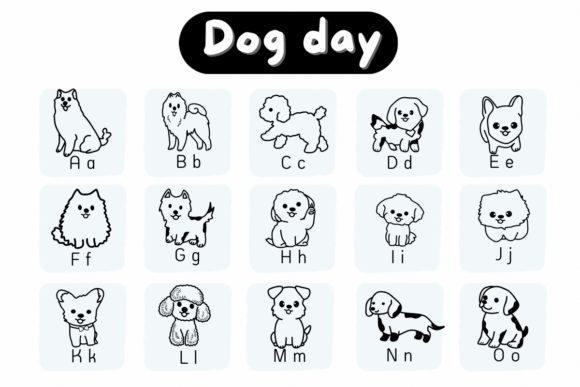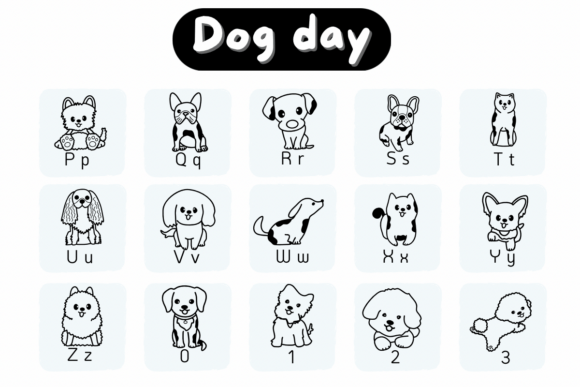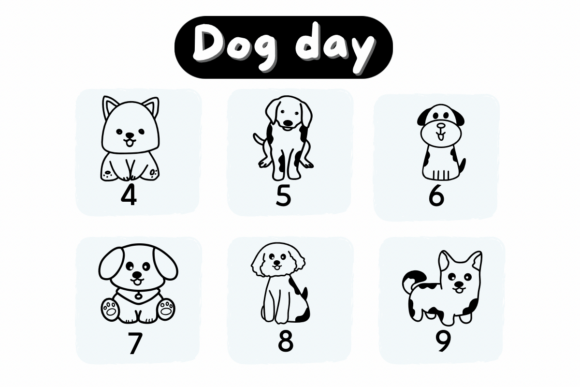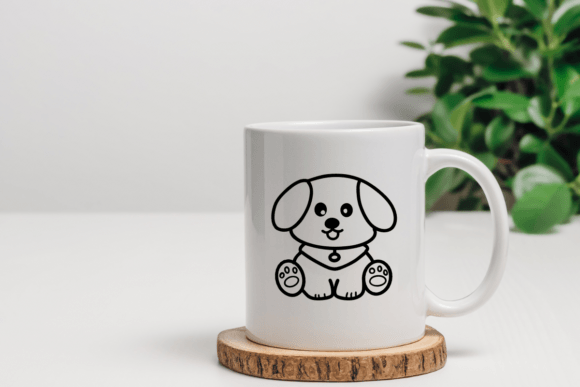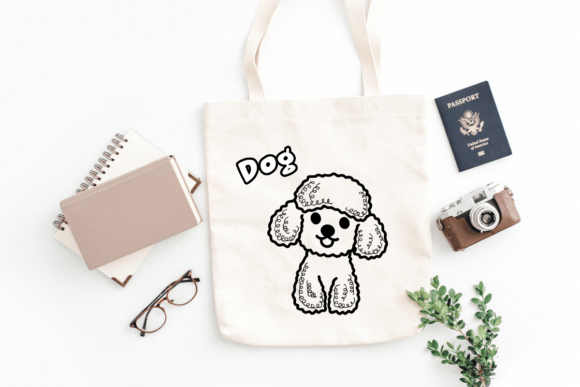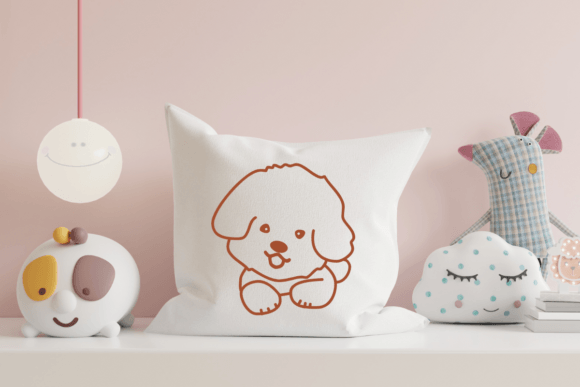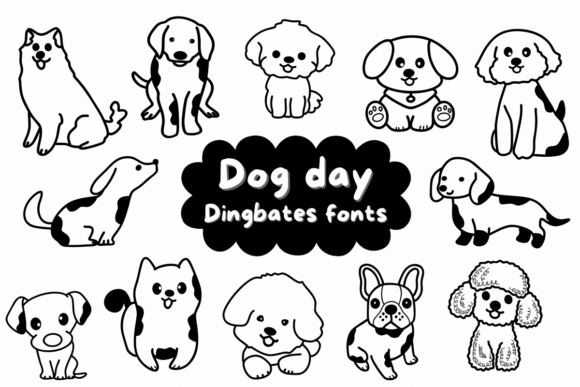
Introducing Dog Day Font: The Ultimate Companion for Fun and Playful Designs
Are you tired of using the same old boring fonts in your designs? Look no further! Dog Day Font is here to bring a smile to your face and a touch of playfulness to your text. This delightful dingbat font is filled with cute dog illustrations, making it perfect for designers, crafters, and anyone who loves dogs.
What is Dog Day Font?
Dog Day Font is a unique and fun font that features adorable dog designs for each letter. This dingbat font is carefully crafted to bring a touch of whimsy and personality to your text. Whether you’re creating a fun greeting card, a playful poster, or a cute social media graphic, Dog Day Font is sure to make your design stand out.
Key Features of Dog Day Font
• Cute Dog Illustrations: Each letter in Dog Day Font features an adorable dog design that’s sure to bring a smile to anyone’s face.
• Playful and Fun: This font is perfect for designs that require a touch of playfulness and personality.
• Dingbat Font: Dog Day Font is a dingbat font, which means it’s made up of symbols and illustrations rather than traditional letters.
Dog Day Font is perfect for designers and crafters who want to add a touch of personality to their designs. Whether you’re creating:
• Greeting cards and invitations
• Posters and flyers
• Craft projects and DIY tutorials
Dog Day Font is sure to bring a smile to your audience’s face and make your design stand out.
Tips for Using Dog Day Font
Here are a few tips for using Dog Day Font in your designs:
• Use it sparingly: While Dog Day Font is fun and playful, it can be overwhelming if used too much. Use it sparingly to add a touch of personality to your design.
• Pair it with a simple font: Pair Dog Day Font with a simple font to create contrast and make your design easier to read.
• Experiment with colors: Dog Day Font looks great in a variety of colors, so don’t be afraid to experiment and find the perfect color for your design.
Dog Day Font is a fun and playful dingbat font that’s perfect for designers and crafters who want to add a touch of personality to their designs. With its cute dog illustrations and easy-to-use design, this font is sure to bring a smile to your audience’s face and make your design stand out. So why wait? Download Dog Day Font today and start creating fun and playful designs that will leave a lasting impression!